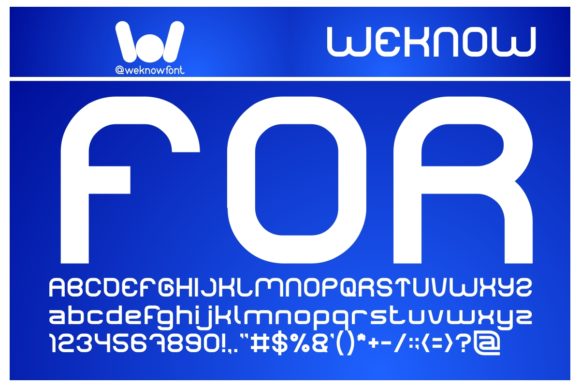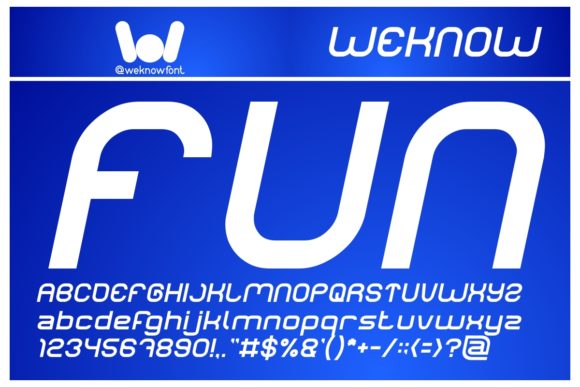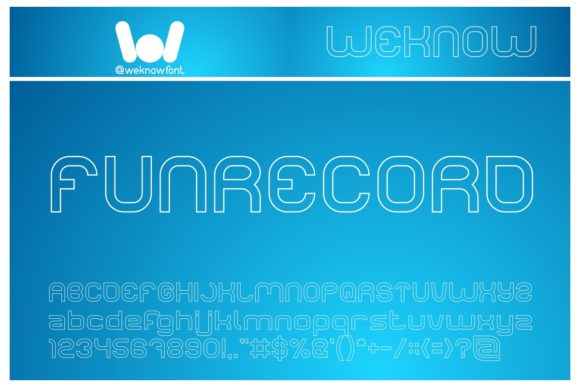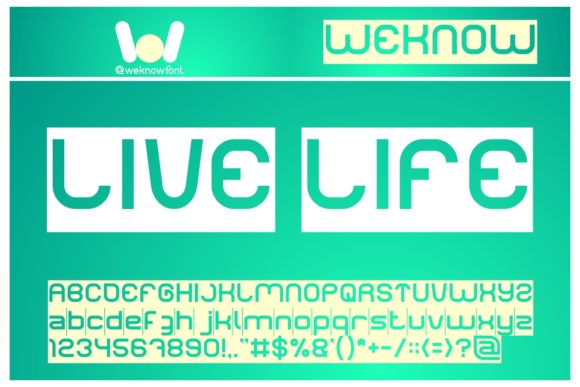
Introduction to Life for Fun Font
As you sit in front of your computer, staring at a blank canvas, the excitement of a new creative project is palpable. Your mind is racing with ideas, and your fingers are itching to bring them to life. And then, it hits you – the perfect font to elevate your design. That’s where Life for Fun Font comes in – a techno-inspired, minimalistic display font that’s sure to take your project to the next level.
With its geometrically shaped letters and fresh aesthetic, Life for Fun Font is the ultimate design resource for any creative project. Whether you’re working on a high-quality brochure, a website, or a social media campaign, this font is sure to make your design stand out. And the best part? It’s a free download, making it accessible to designers of all levels.
Key Features of Life for Fun Font
- Unique, playful design elements make it perfect for fun and creative projects
Honest Review: Life for Fun Font
I recently stumbled upon the Life for Fun Font, and I’m excited to share my honest thoughts on this design resource. As a designer, I’m always on the lookout for high-quality fonts that can elevate my creative projects. The Life for Fun Font definitely delivers on this front.
- High Quality: The font is well-designed and looks professional, making it perfect for a wide range of creative projects.
While the Life for Fun Font is a great resource, there are a few limitations to be aware of:
- Limited Character Set: The font doesn’t have a comprehensive character set, which may limit its use in certain situations.
- No Variations: The font only comes in a single style, which may not be ideal for designers who need more flexibility.
Overall, the Life for Fun Font is a great addition to any designer’s toolkit. Its high quality, transparent background, and free download make it a valuable resource for any creative project. However, its limitations may be a concern for some designers. I’d definitely recommend checking it out and seeing if it’s a good fit for your next project.
Introduction to Life for Fun Font
The Life for Fun Font is a high-quality design resource perfect for creative projects. With a transparent background and free download available, this font is ideal for designers looking to add a unique touch to their work.
Tips for Getting the Most Out of Life for Fun Font
To get the most out of the Life for Fun Font, use it in combination with other design elements to create a unique and eye-catching design. Experiment with different font sizes, colors, and arrangements to find the perfect look for your project.
Common Use Cases for Life for Fun Font
The Life for Fun Font is perfect for a variety of creative projects, including social media graphics, posters, and flyers. It’s also great for use in presentations, documents, and websites.